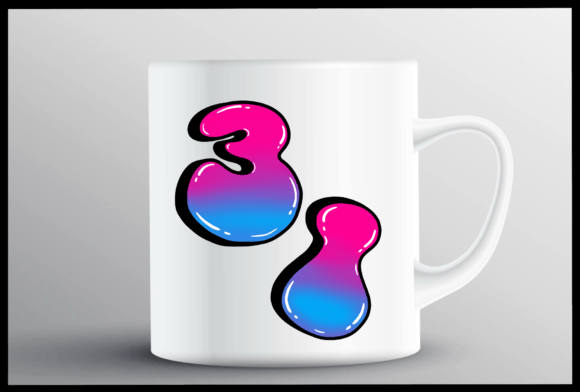
Lovely Graffiti Font
Lovely Graffiti is a fun and chunky font that looks like graffiti art. The letters are bold and playful, perfect for making your designs stand out with a cool and creative touch.